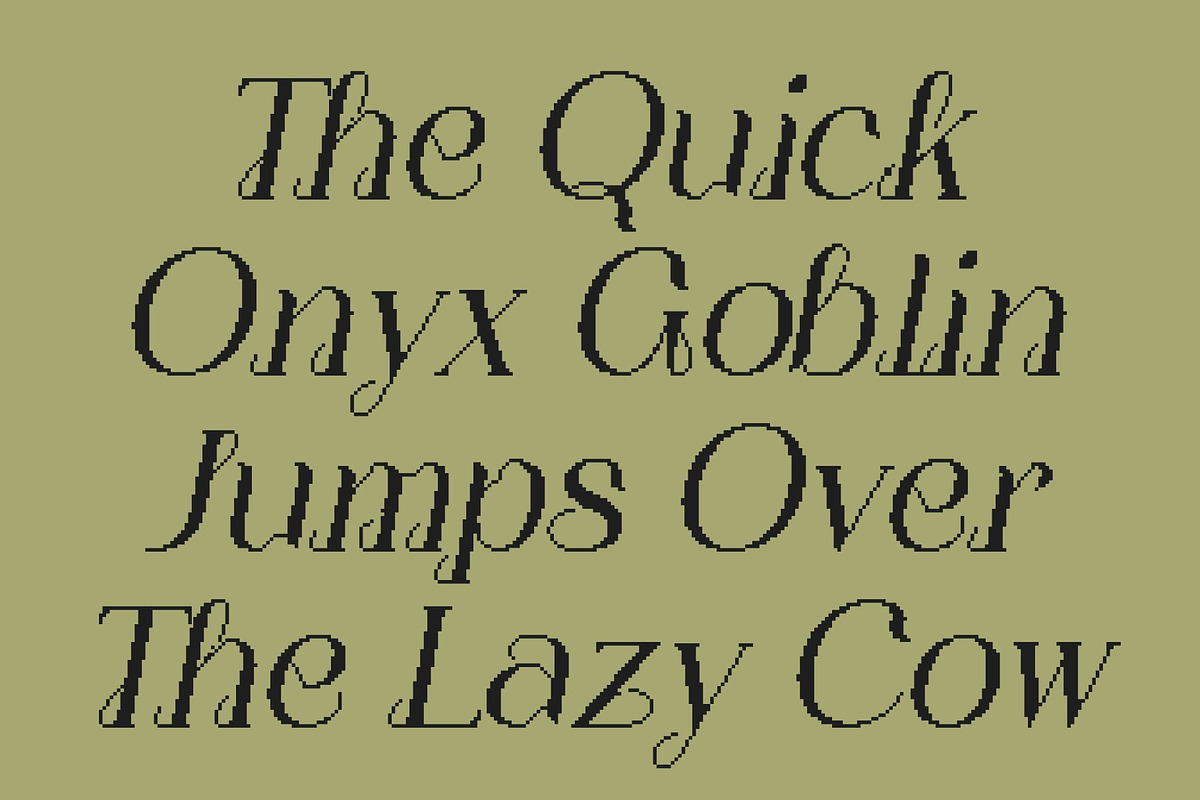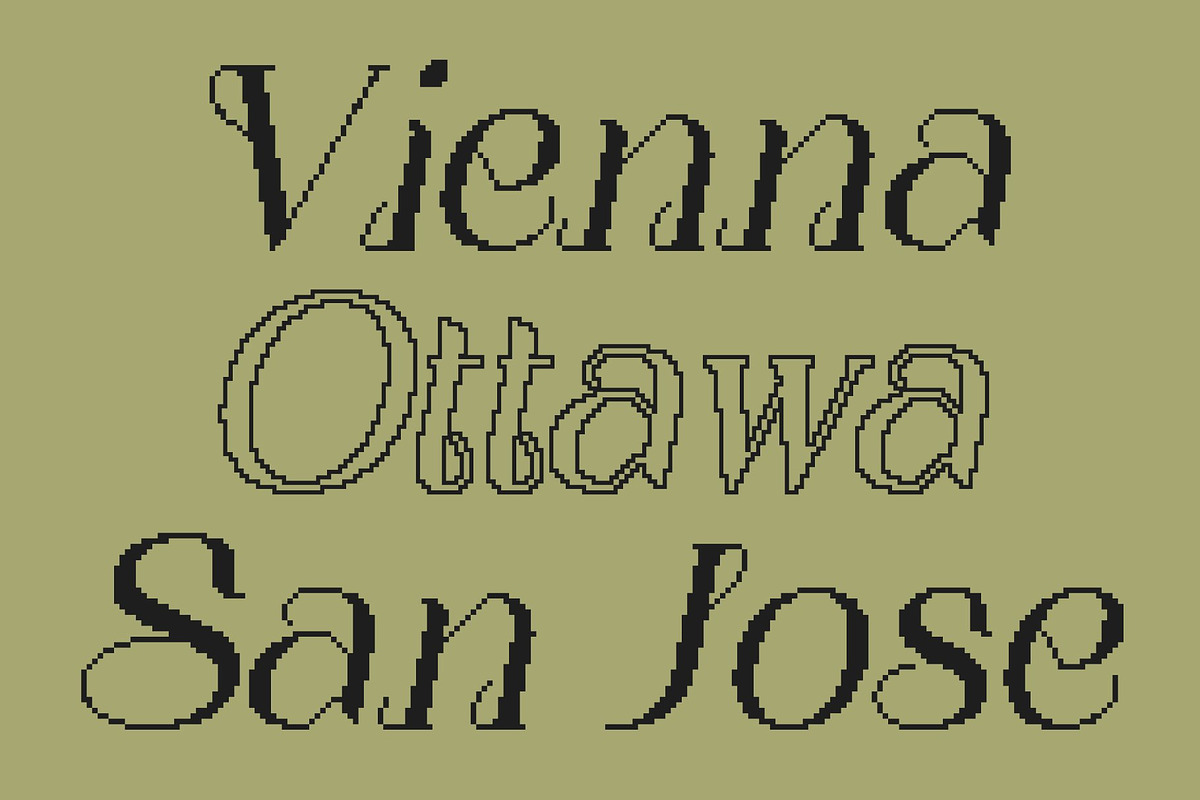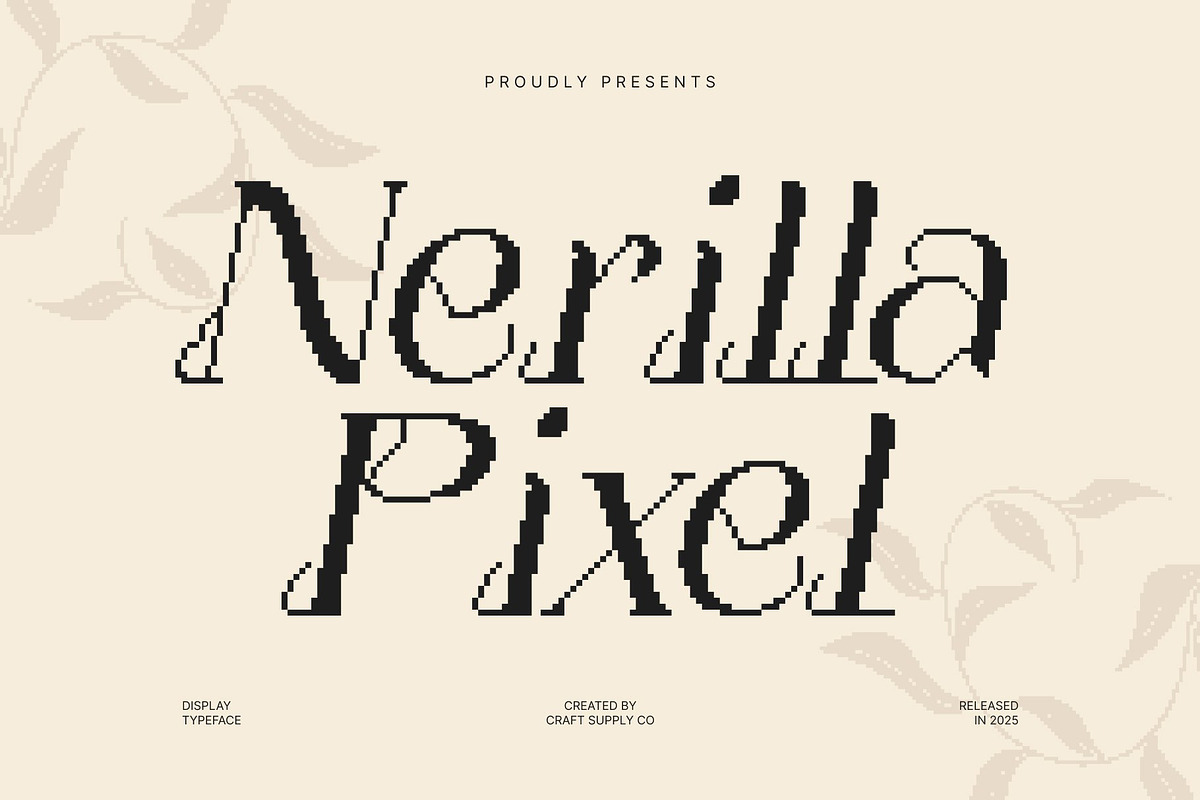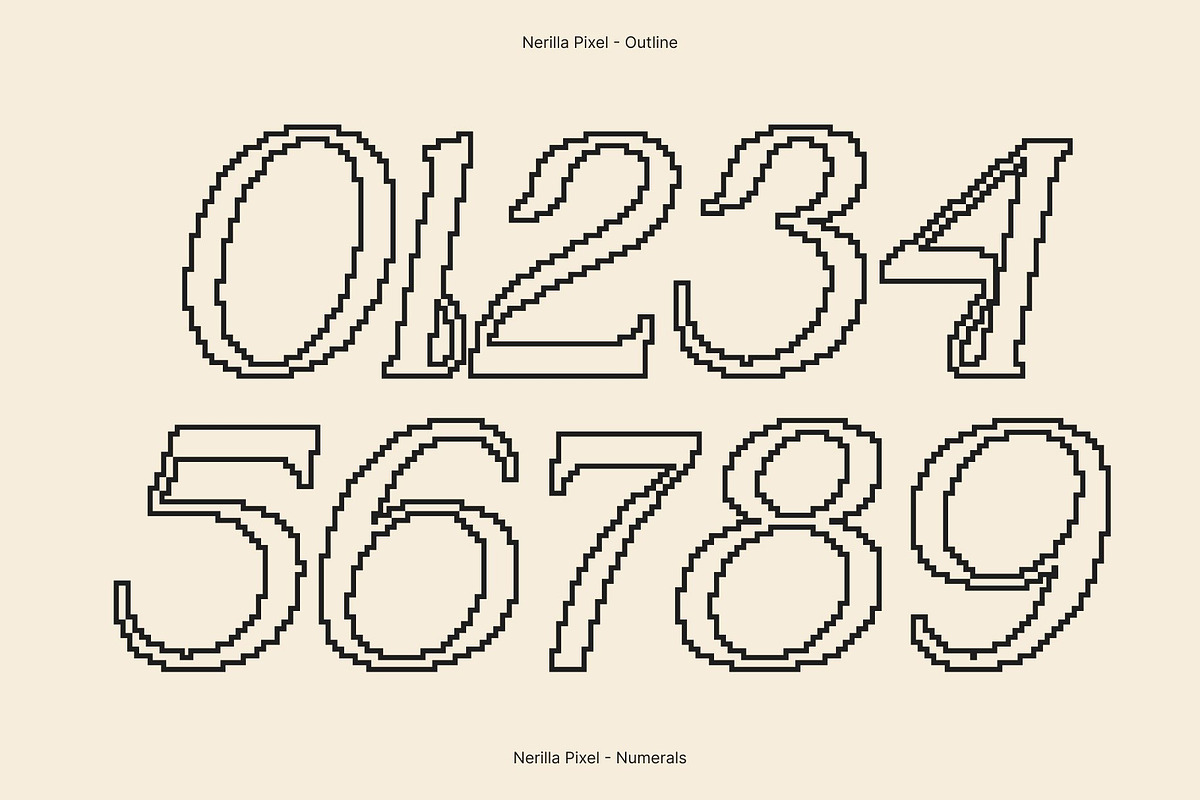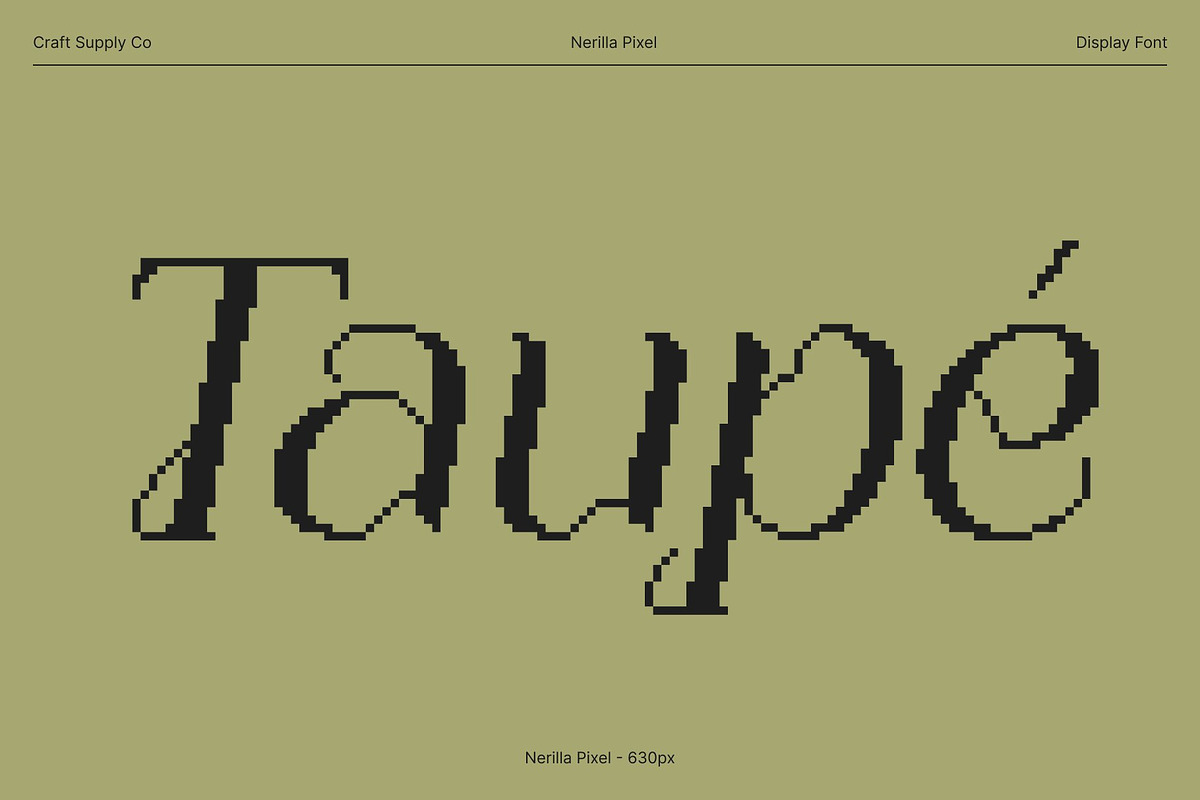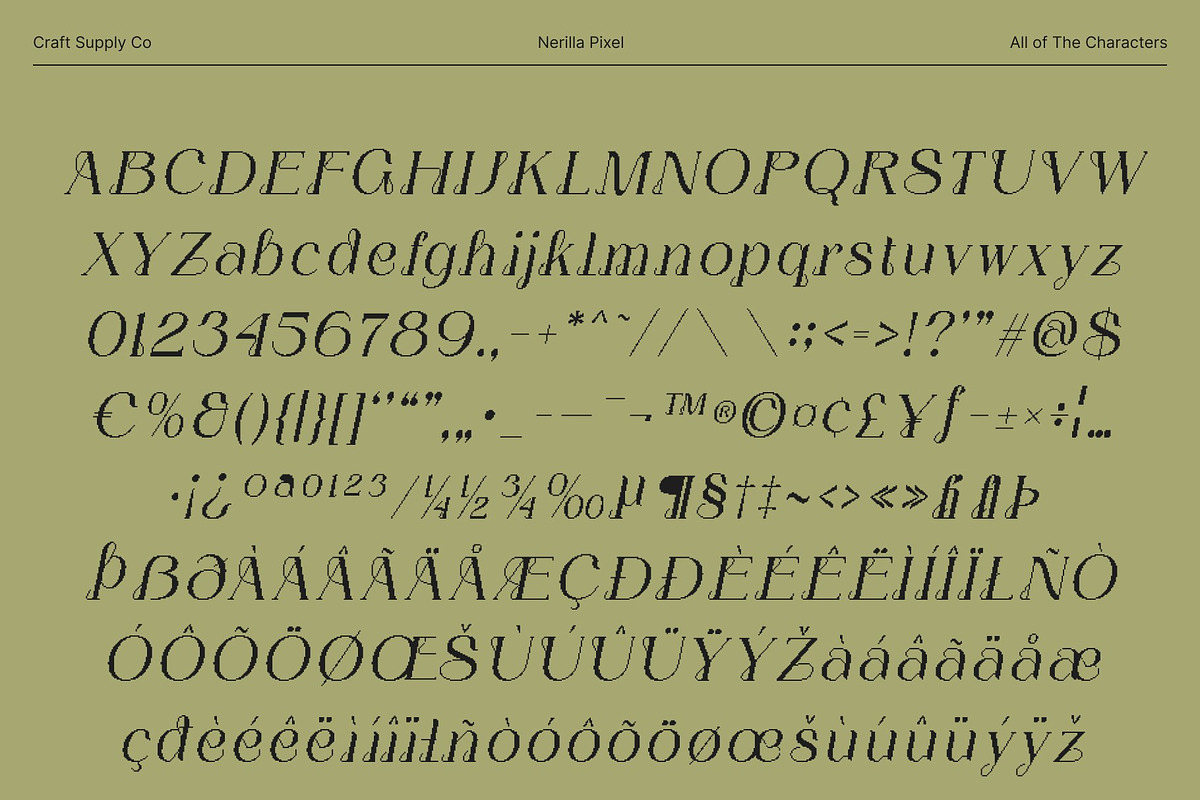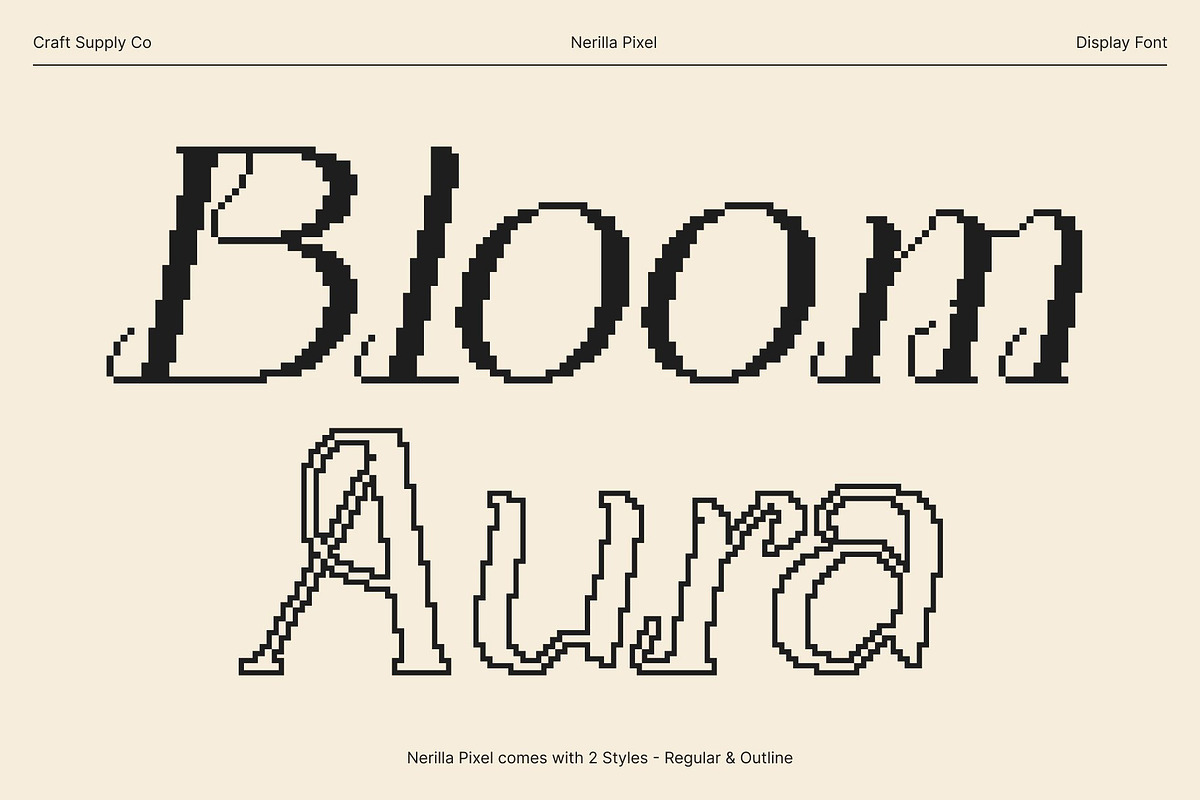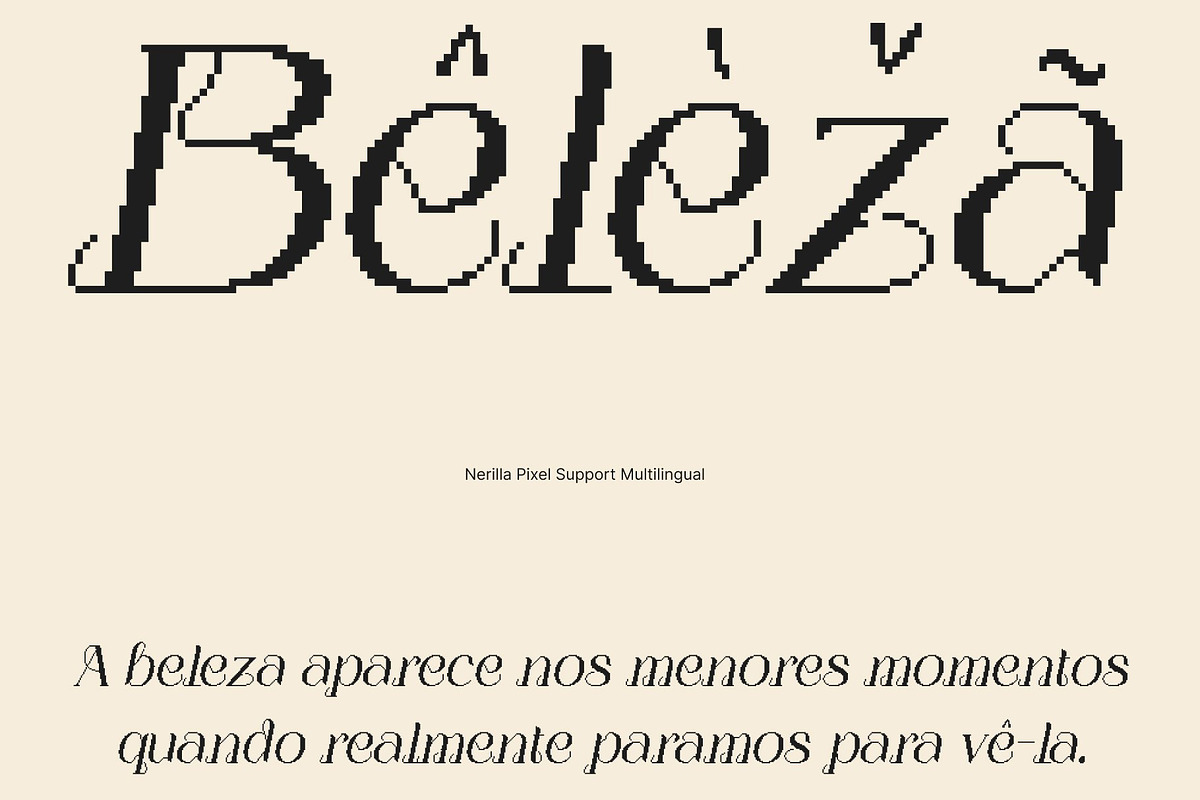
Nerilla Pixel
Nerilla Pixel – Art Nouveau Serif Display Font with Pixel Charm
Art Nouveau Inspiration with Elegant Flowing Curves This is a serif display font inspired by the graceful curves and organic beauty of Art Nouveau design. Its flowing letterforms and refined lines create an artistic, sophisticated feel, making every design look polished, elegant, and visually captivating.
90s-Era Aesthetic with Nostalgic Charm Designed with subtle 90s-era influences, this font evokes a sense of retro digital nostalgia while maintaining modern elegance. The font’s forms recall the stylish and playful spirit of the decade, adding a touch of vintage character to contemporary layouts.
Pixel Style for Modern Digital Expression Enhanced with a pixel-inspired design, this font combines classic Art Nouveau beauty with a modern digital edge. The pixel detailing gives the font a unique character and contemporary flair, making it ideal for digital branding, posters, and editorial projects that demand both style and personality.
Perfect for Digital Branding, Posters, and Editorials This font excels in creative projects that need sophistication, artistic beauty, and a touch of retro digital flair. Use it for branding, poster design, social media visuals, or editorial layouts to convey elegance, creativity, and a visually striking 90s-inspired style. Its flowing curves, pixel detailing, and refined structure make it a standout choice for designers seeking both beauty and modern digital character.